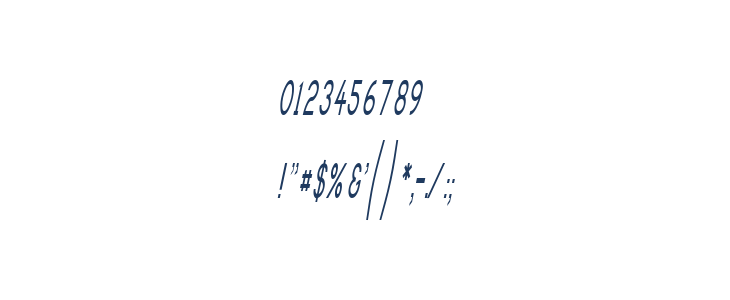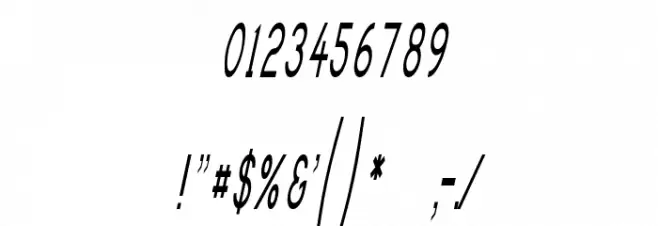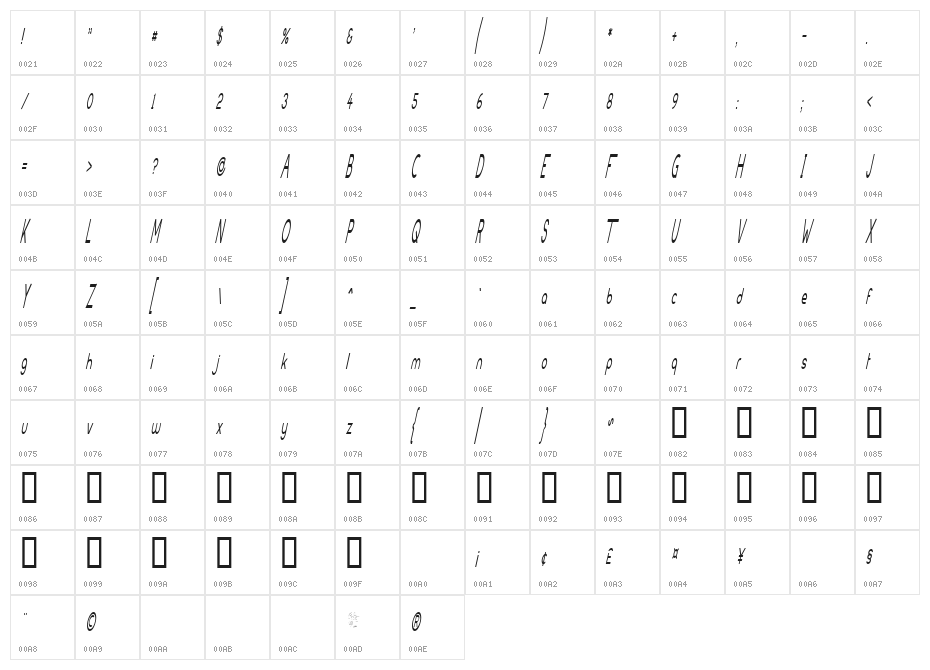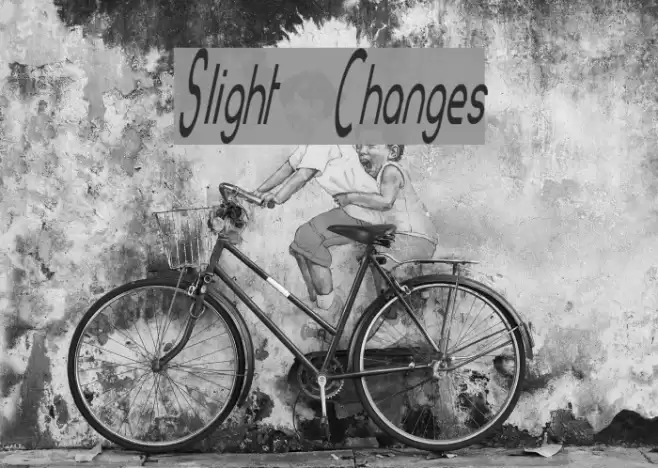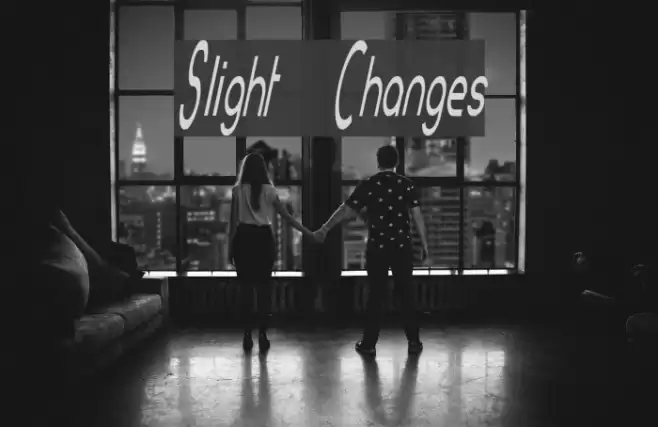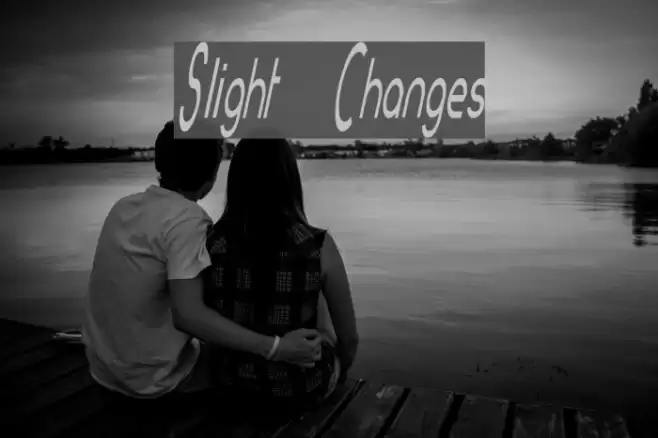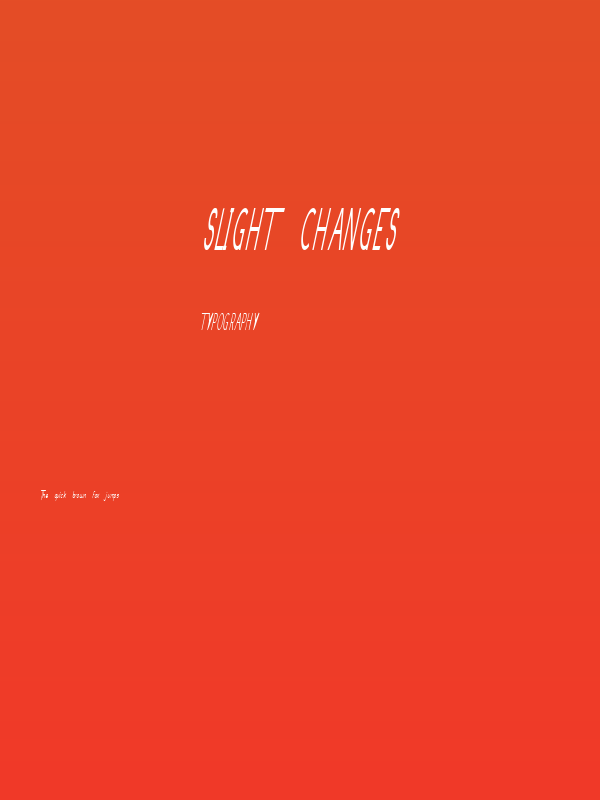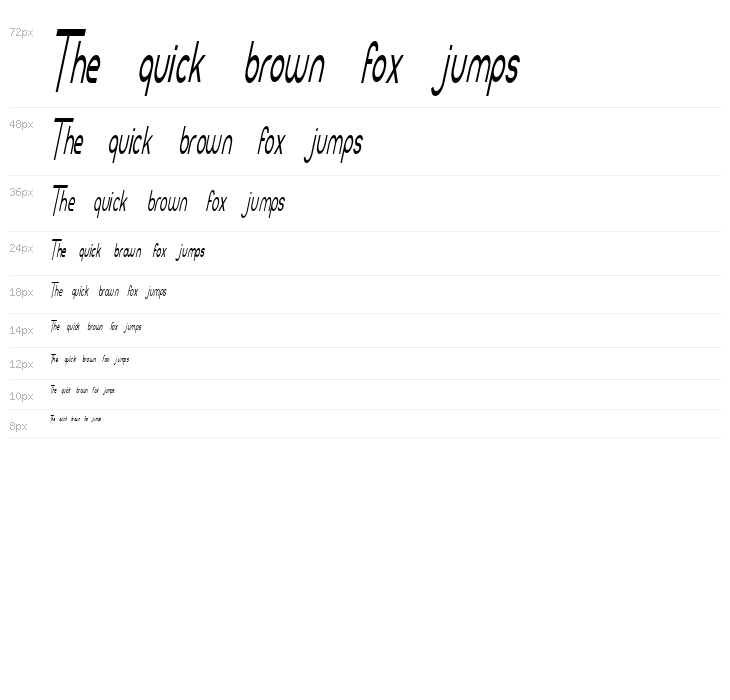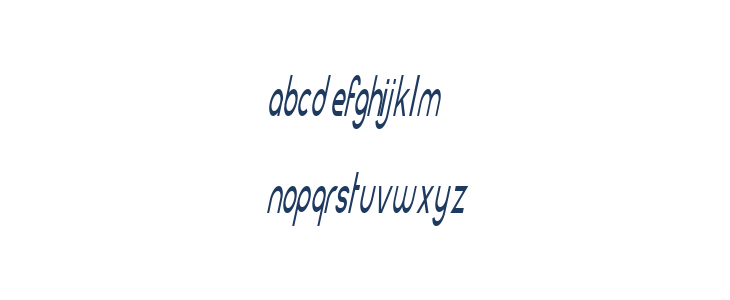
Slight Changes Font
Slight Changes Description
This font features a modern and sleek design with a slight slant, giving it an italicized appearance. The characters are elongated and have a consistent stroke width, contributing to a clean and streamlined look. The uppercase letters are tall and narrow, while the lowercase letters maintain a similar style but with a more casual feel. The numerals are uniform and align well with the overall aesthetic. Special characters are included, maintaining the same stylistic elements. This font is versatile and can be used in various design projects that require a contemporary and stylish touch.
| Proposed Projects | Ideal for branding, advertising, and editorial design projects that require a modern and stylish appearance. |